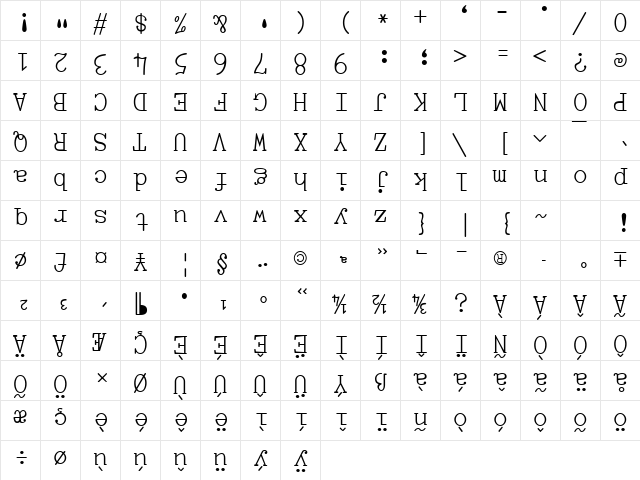
UpsideDown Regular
Design Context for UpsideDown Typeface
UpsideDown takes a measured approach to typography — its balanced proportions and neutral character make it a reliable workhorse for both digital and print work.